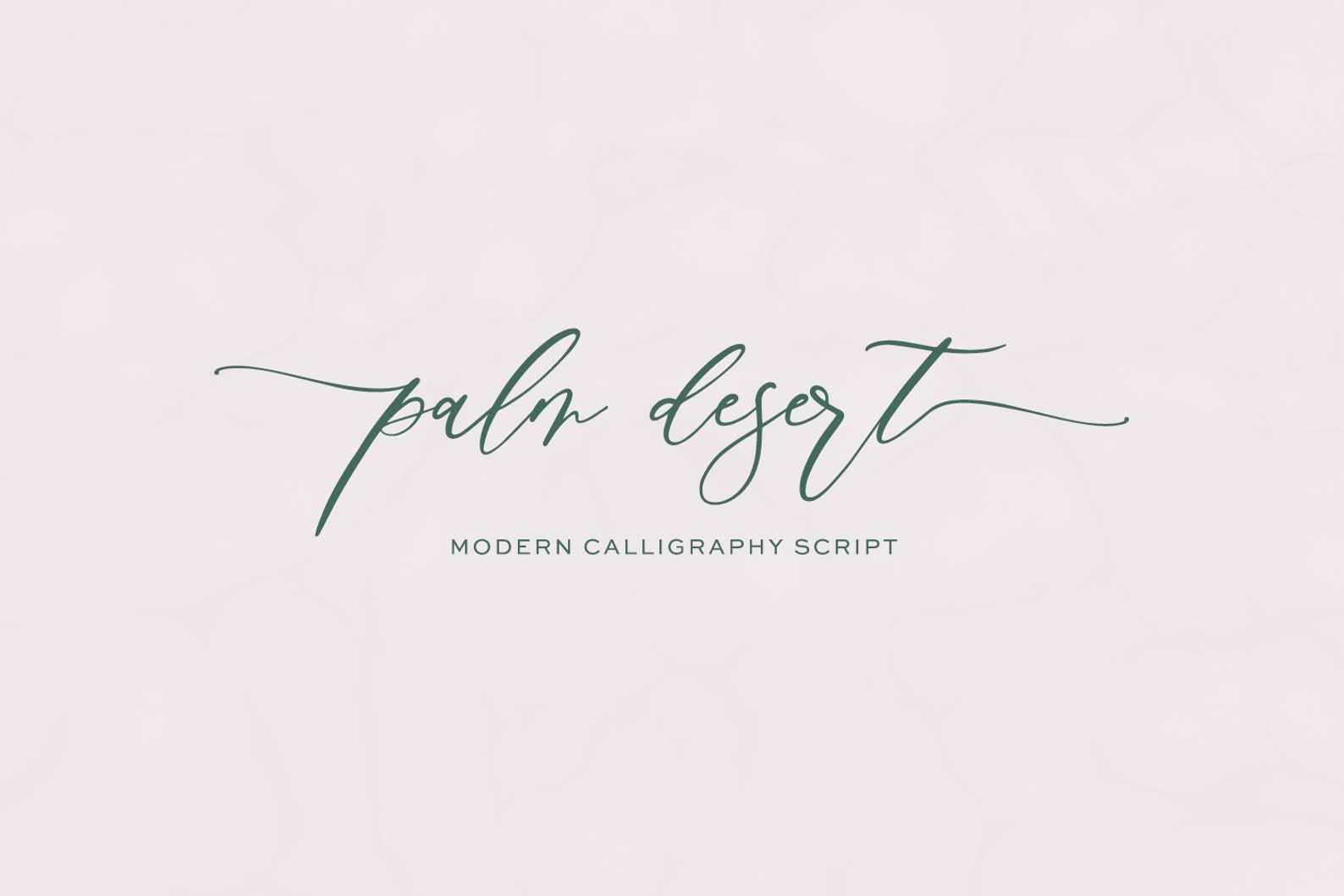
Palm Desert Font
Palm Desert Font is perfect for tropical resort branding, beach vacation marketing, sunny lifestyle blogs, California-inspired designs, outdoor adventure graphics, travel agency materials, coastal restaurant menus, summer fashion labels, vacation rental properties, and warm designs that evoke the relaxed sophistication of desert oasis living and palm-lined paradise.
This font is exciting because it captures the essence of sun-soaked desert elegance and effortless West Coast cool through letterforms that feel both refined and relaxed. The distinctive character design embodies the perfect balance of luxury and laid-back living, making it ideal for projects that want to evoke the glamorous yet comfortable lifestyle of desert resort destinations and California dreaming.
The Palm Desert Font family typically includes uppercase and lowercase characters, numerals, punctuation marks, special symbols, and stylistic variations that provide versatility for creating sophisticated vacation-inspired designs with contemporary desert aesthetic appeal.